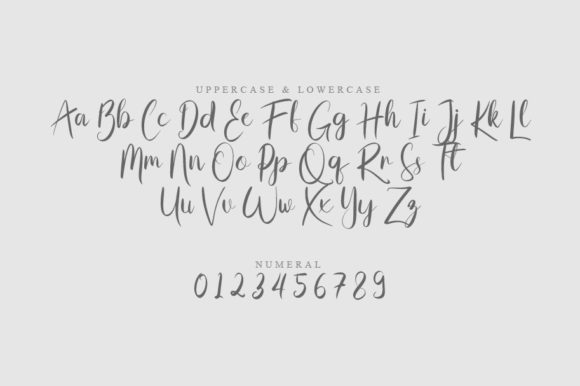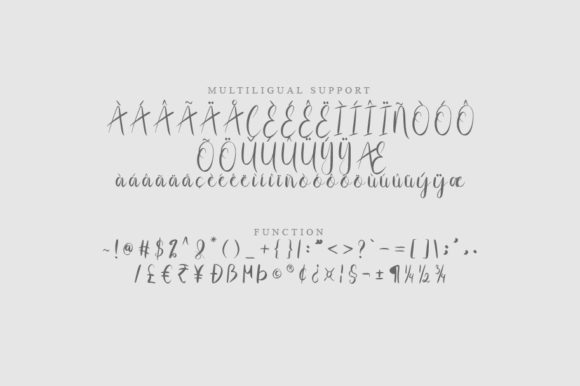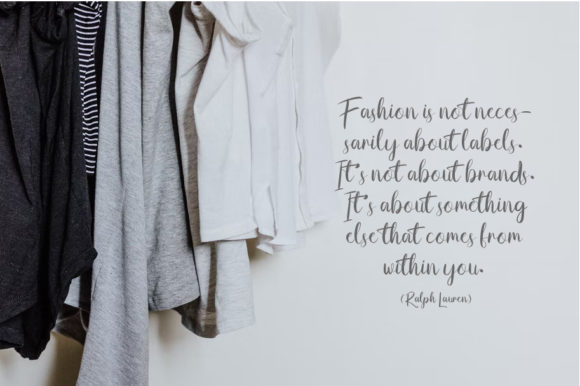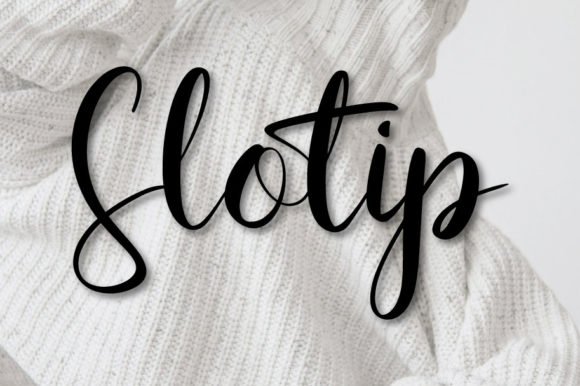
Introduction to Slotip Script Font
Slotip Script is a lovely and timeless handwritten font.
Why Choose Slotip Script Font?
Slotip Script Font offers exceptional quality and versatility, making it a valuable addition to your design toolkit. Whether you’re creating for personal projects or commercial use, Slotip Script Font delivers professional results.